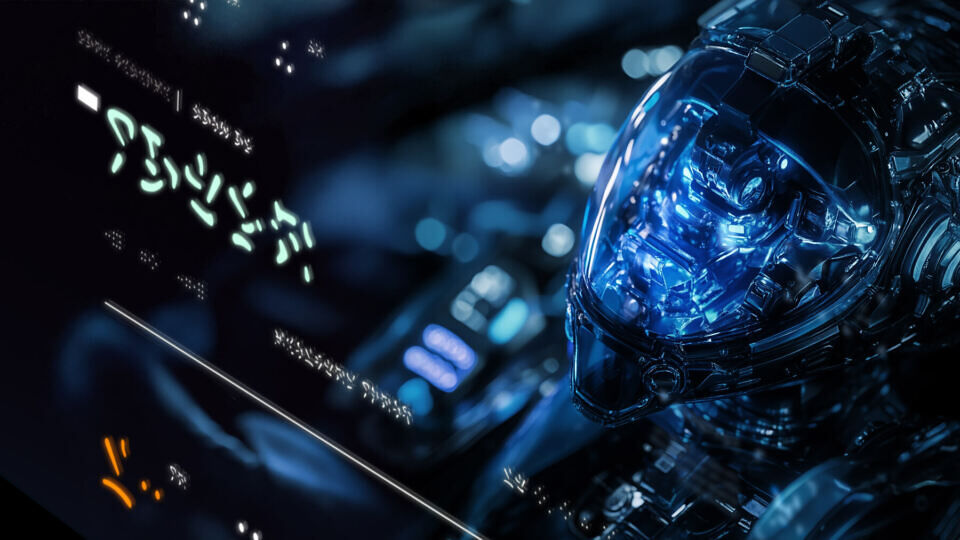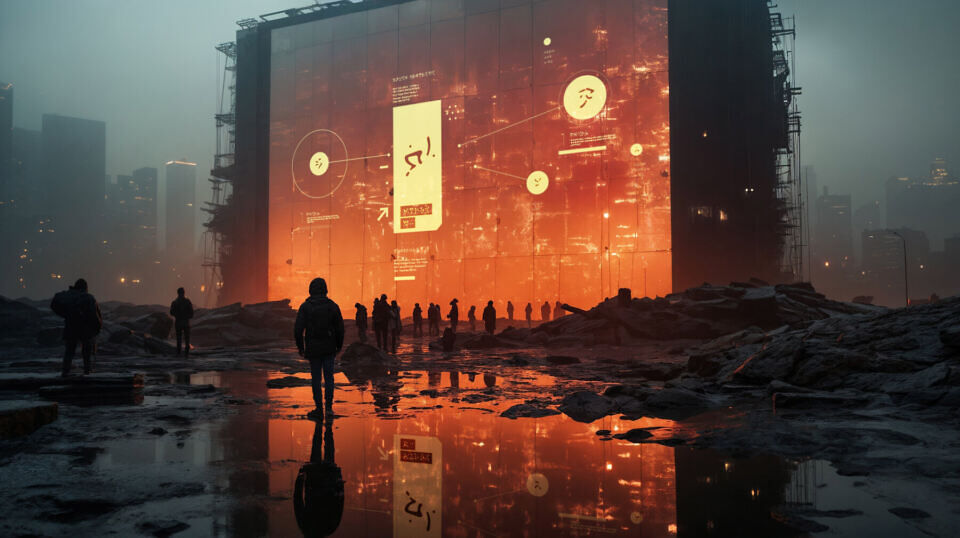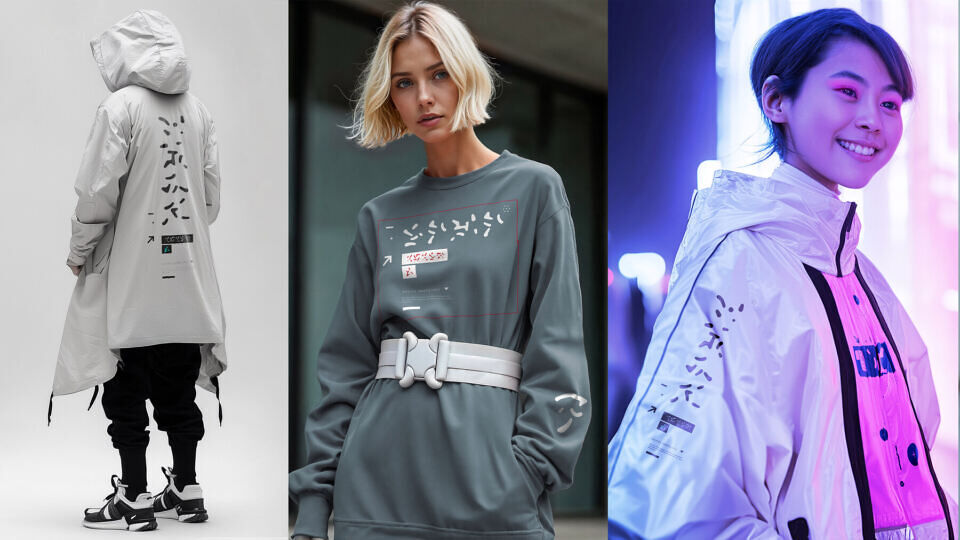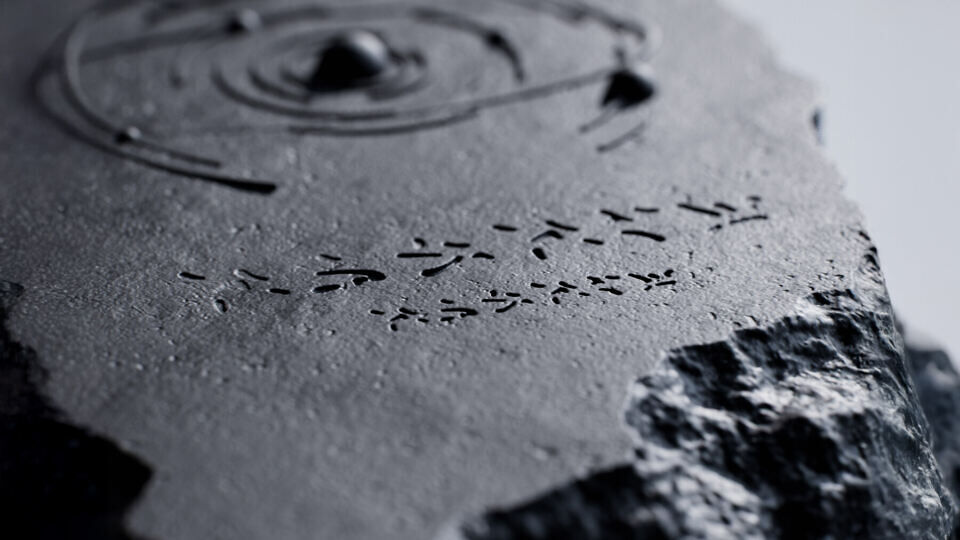
ProtoScript is a set of unique graphemes with no direct semantic equivalents in any existing language. Simply put, it’s a fictional alphabet inspired by the aesthetics of Japanese katakana, East Asian scripts, futuristic trends, and sci-fi culture. ProtoScript is a fusion of abstraction and recognizable graphic elements, drawing inspiration from Japanese calligraphy and typographic traditions.
Data Projections ProtoScript is a conceptual system for visualizing data as slice projections of point clouds (information) arranged in 3D space. As a visual metaphor — think of star clusters and planetary systems forming galaxies and nebulae in space, with outlines and visible contours. A more familiar comparison would be the Zodiac signs, where symbolic forms emerge from patterns of points — but here we are dealing with entirely different scales of data and an infinite number of possible symbols and graphemes.
The font was created as an art project aimed at designers, concept artists, game developers, and interface designers. Design often answers questions. ProtoScript asks them instead.
This project is an experiment in non-semantic typography: type as texture, atmosphere, and mystery. ProtoScript is not designed for immediate reading; instead, it functions as a symbolic system rather than a standard alphabet.